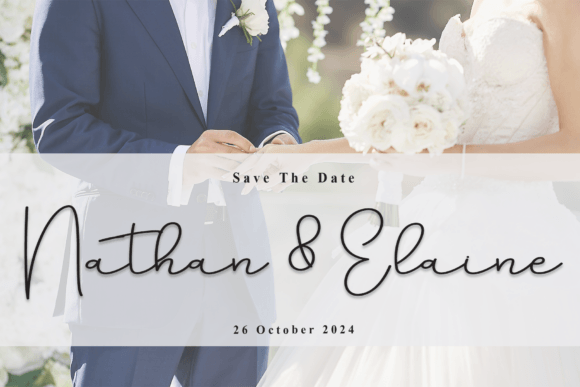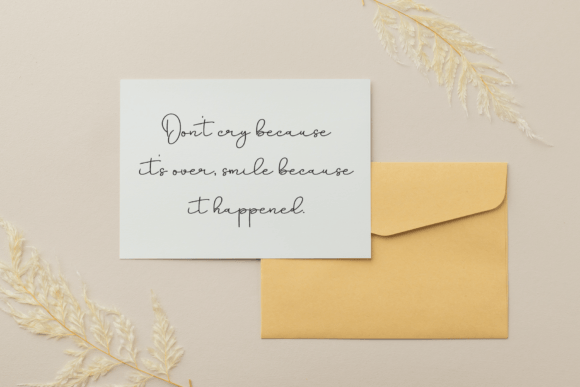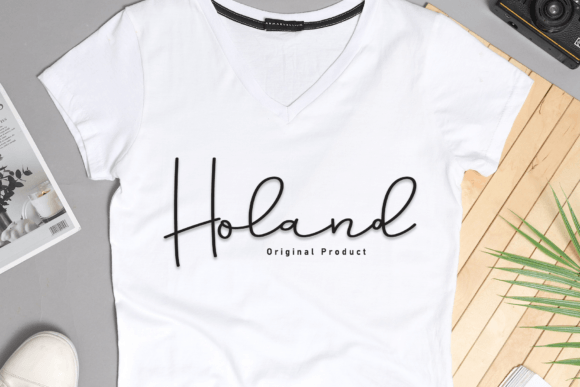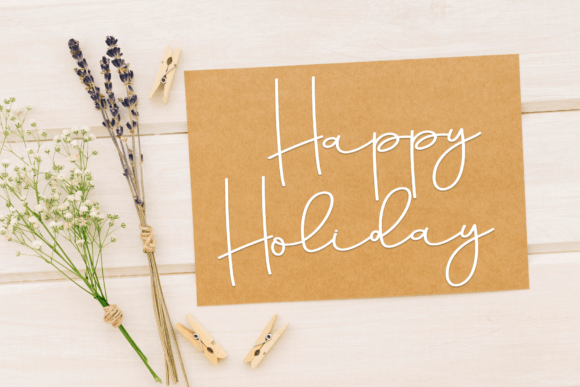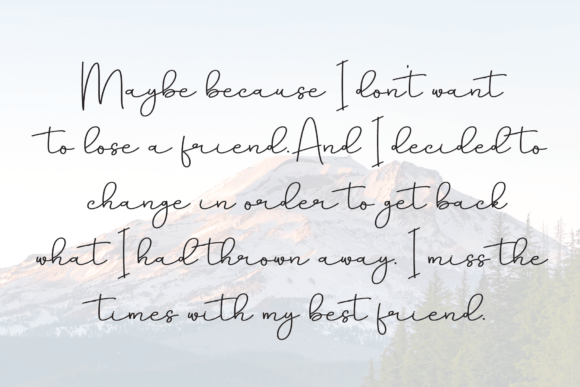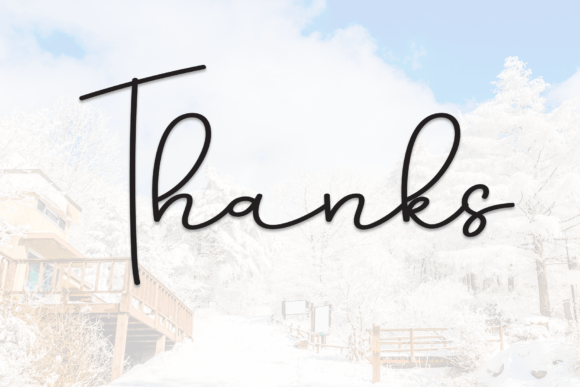
Introducing Beautiful Snowday Font: Elevate Your Designs with Elegance and Class
Are you tired of using the same old fonts for your designs? Do you want to add a touch of elegance and sophistication to your projects? Look no further than Beautiful Snowday Font, a lovely and delicate script font that exudes refinement and poise. In this article, we’ll explore the features and benefits of this stunning font, and how it can elevate your designs to the next level.
The Story Behind Beautiful Snowday Font
Beautiful Snowday Font was particularly crafted for designers and crafters who need a beautiful and refreshing look to their designs. The font’s creators aimed to create a typeface that would evoke a sense of serenity and calmness, perfect for projects that require a touch of elegance and sophistication. With its delicate strokes and refined lines, Beautiful Snowday Font is sure to impress.
Key Features of Beautiful Snowday Font
- Delicate Script Style: Beautiful Snowday Font features a beautiful script style that is perfect for adding a touch of elegance to your designs.
- Refined Lines and Strokes: The font’s refined lines and strokes create a sense of sophistication and poise, making it ideal for high-end designs.
- Easy to Read: Despite its delicate nature, Beautiful Snowday Font is easy to read, making it perfect for body text and headings.
- Multilingual Support: The font supports multiple languages, making it a great choice for designers who work with international clients.
Use Cases for Beautiful Snowday Font
Beautiful Snowday Font is a versatile typeface that can be used in a variety of design projects, including:
- Wedding Invitations and Stationery: The font’s elegant and refined style makes it perfect for wedding invitations, stationery, and other formal events.
- Branding and Packaging: Beautiful Snowday Font can add a touch of sophistication to your brand’s packaging and marketing materials.
- Signage and Displays: The font’s delicate style makes it ideal for signage and displays that require a touch of elegance.
- Digital Media: Beautiful Snowday Font can be used in digital media, such as social media graphics, blog posts, and website headers.
Tips for Using Beautiful Snowday Font
- Pair it with Bold Fonts: Pair Beautiful Snowday Font with bold fonts to create a striking contrast and add visual interest to your designs.
- Use it for Headings and Titles: The font’s delicate style makes it perfect for headings and titles, where it can add a touch of elegance and sophistication.
- Experiment with Colors: Beautiful Snowday Font looks great in a variety of colors, so don’t be afraid to experiment and find the perfect hue for your design.